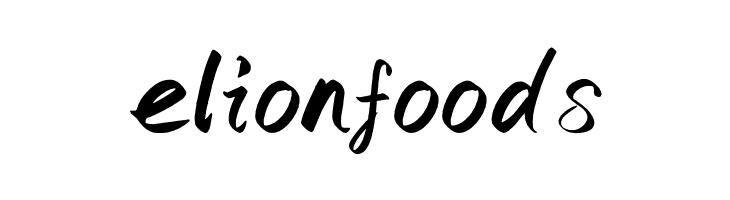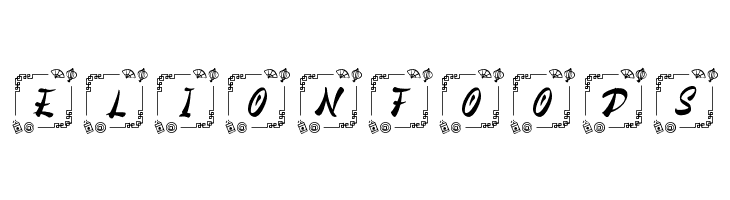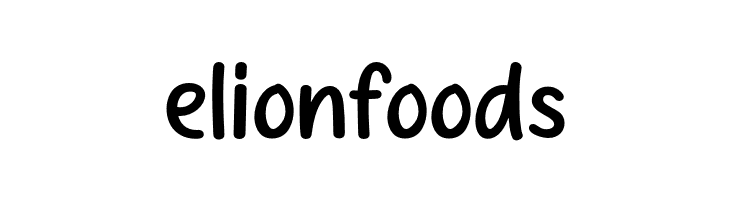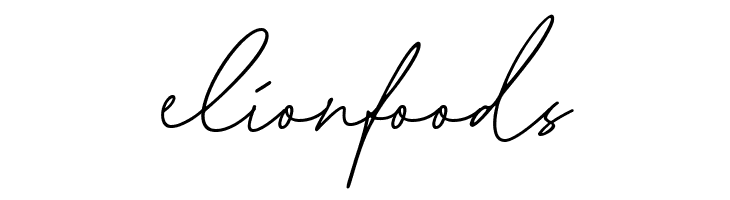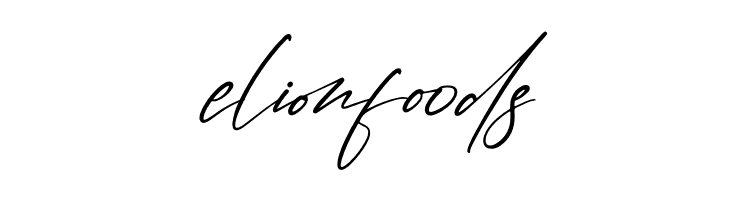
A dynamic, brush-style font with expressive, calligraphic strokes.
A decorative font with ornate frames and traditional motifs, perfect for cultural designs.
A playful, bold font with rounded edges and a friendly appearance.
An elegant script font with flowing, interconnected letters and ornate uppercase characters.
A graceful, flowing script font with elegant curves and delicate strokes.
A playful, rounded font with a hand-drawn, friendly appearance.
A fluid, cursive script font with an elegant, handwritten style.
A sophisticated, elegant handwritten font with fluid, continuous strokes.
A playful, handwritten font with smooth, flowing strokes and a casual elegance.
A playful and casual handwritten font with rounded, smooth letterforms.